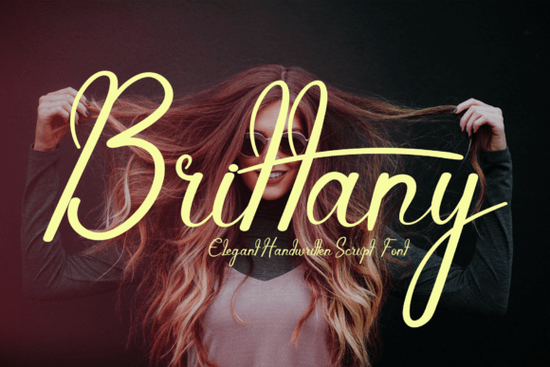
If you're looking for a script font that feels personal, elegant, and effortlessly graceful, the Brittany Font is worth your attention. Designed with flowing strokes and a natural handwritten rhythm, it captures the charm of pen-on-paper without appearing overly stylized or stiff. Whether you’re crafting wedding stationery, designing boutique packaging, or adding a soft touch to social media graphics, Brittany brings warmth and sophistication that generic fonts often miss.
What makes Brittany Font stand out among handwritten scripts?
Unlike many digital script fonts that lean too heavily into uniformity, Brittany retains subtle variations in stroke width and letterform just like real handwriting. This gives your designs authenticity, especially when used for names, quotes, or short phrases. It’s particularly effective in projects where emotion and personal connection matter: think bridal shower invites, custom gift tags, or even logo accents for lifestyle brands.
It pairs beautifully with clean sans-serif fonts for contrast, letting the script shine without overwhelming the layout. And because it includes both uppercase and lowercase letters with natural connections, it works well for longer words too not just single-word flourishes.
Who should consider using this font?
- Wedding designers: From save-the-dates to place cards, Brittany adds a romantic, timeless feel.
- Small business owners: Ideal for boutique product labels, café menus, or handmade soap branding.
- Print-on-demand creators: Use it on mugs, tote bags, or wall art featuring inspirational quotes or names.
- Crafters and hobbyists: Perfect for vinyl cutting, embroidery digitizing, or hand-lettering practice references.
How to use Brittany Font effectively
Because it’s a script font, legibility matters especially at smaller sizes. Stick to using Brittany for headlines, titles, or short text blocks rather than body copy. Avoid tight letter spacing; the natural flow of the letters needs room to breathe. In design software like Canva, Photoshop, or Illustrator, enable contextual alternates (if available in your version) to get the most organic look.
For print projects, test a physical proof before mass production. Some delicate hairlines may not reproduce well on low-resolution printers or textured paper. On digital displays, pair it with ample negative space so the elegance isn’t lost in clutter.
Is it beginner-friendly?
Yes. Brittany doesn’t require advanced typography skills to look great. Even if you’re new to design, simply typing a name or phrase in this font often yields beautiful results. That said, learning basic pairing principles like combining it with a neutral sans-serif such as Montserrat or Lato can elevate your work significantly.
Quick checklist before using Brittany Font:
- Confirm your project calls for a soft, feminine, or romantic tone.
- Use it for short text avoid long paragraphs.
- Pair with a simple, clean secondary font for balance.
- Test print or screen rendering at actual size.
With its authentic handwritten appeal and versatile charm, Brittany Font is a reliable choice for creatives who value both beauty and usability. Give it a try the next time your design needs a gentle, human touch.